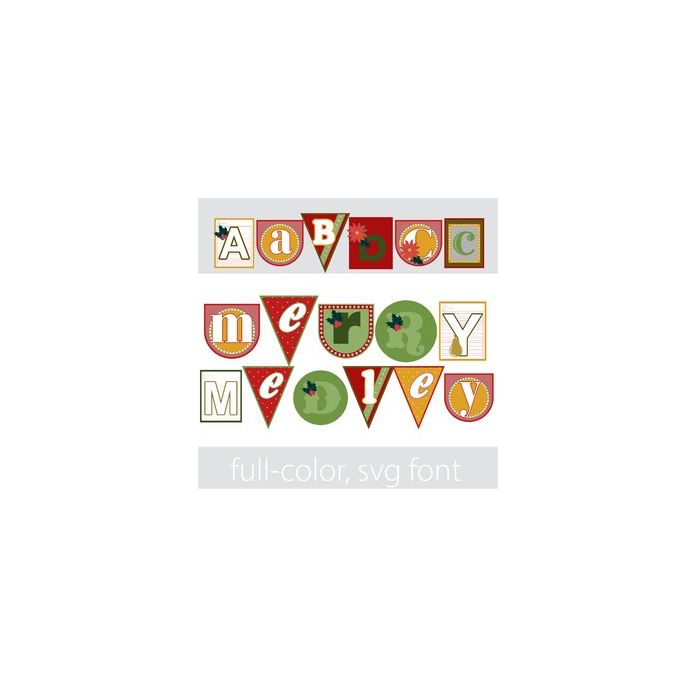
This cute, full-color font features Christmas pennants with a variety of font styles. There is an alt case w/ additional colors you can access through your system or Silhouette's glyph map.